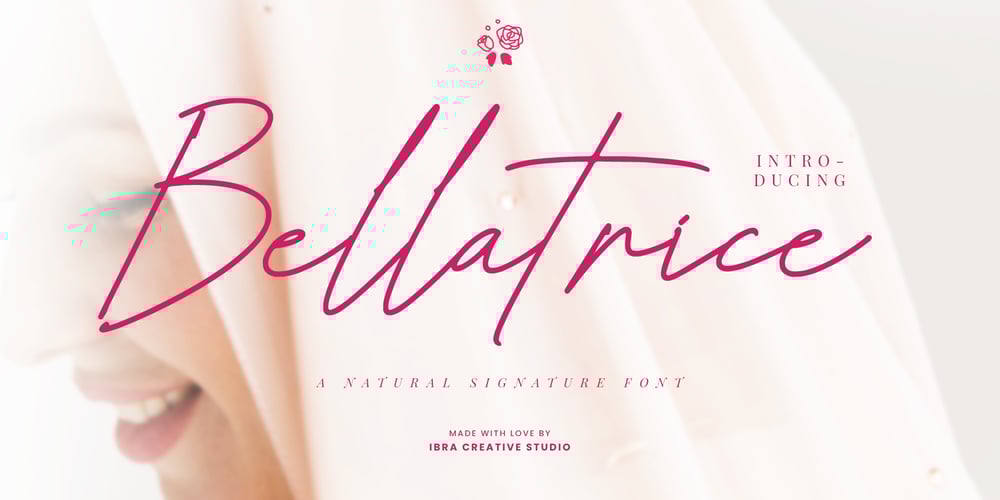
Bellatrice Natural
Bellatrice Natural font
Bellatrice Natural Font Family was designed by Roisatul Azizah and published by IbraCreative. Bellatrice Natural contains 1 styles and family package options. Bellatrice Natural is a captivating natural signature font that effortlessly combines elegance with a touch of organic charm. Its fluid strokes emulate the graceful movements of handwritten script, lending a personalized and authentic feel to any design. The gentle curves and slightly irregular lines of Bellatrice evoke the warmth and individuality of a handcrafted signature, making it an ideal choice for projects that seek a distinctive and human touch. The font’s natural flow and intricate details create a harmonious balance, resulting in a timeless and sophisticated signature style that can elevate a variety of creative endeavors, from invitations and branding to personal correspondence. Bellatrice is a testament to the artistry of a well-crafted signature font, capturing the essence of natural handwriting with grace and finesse.